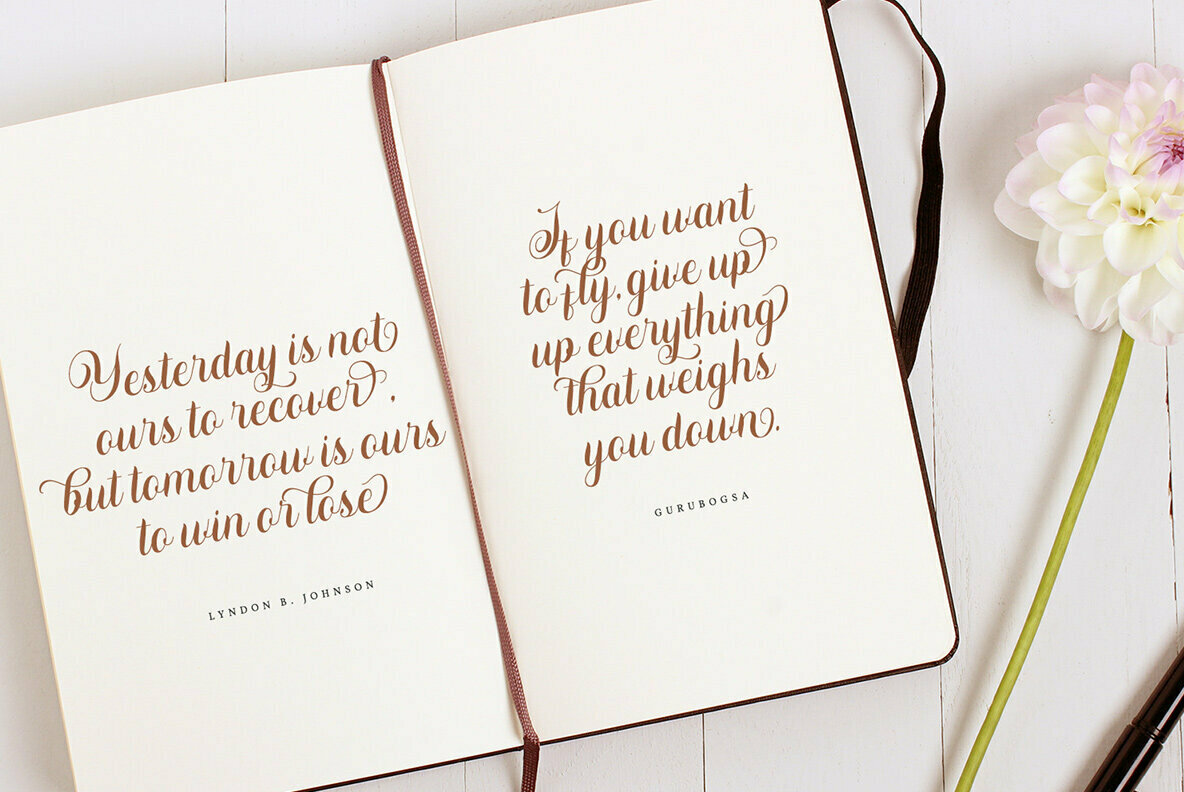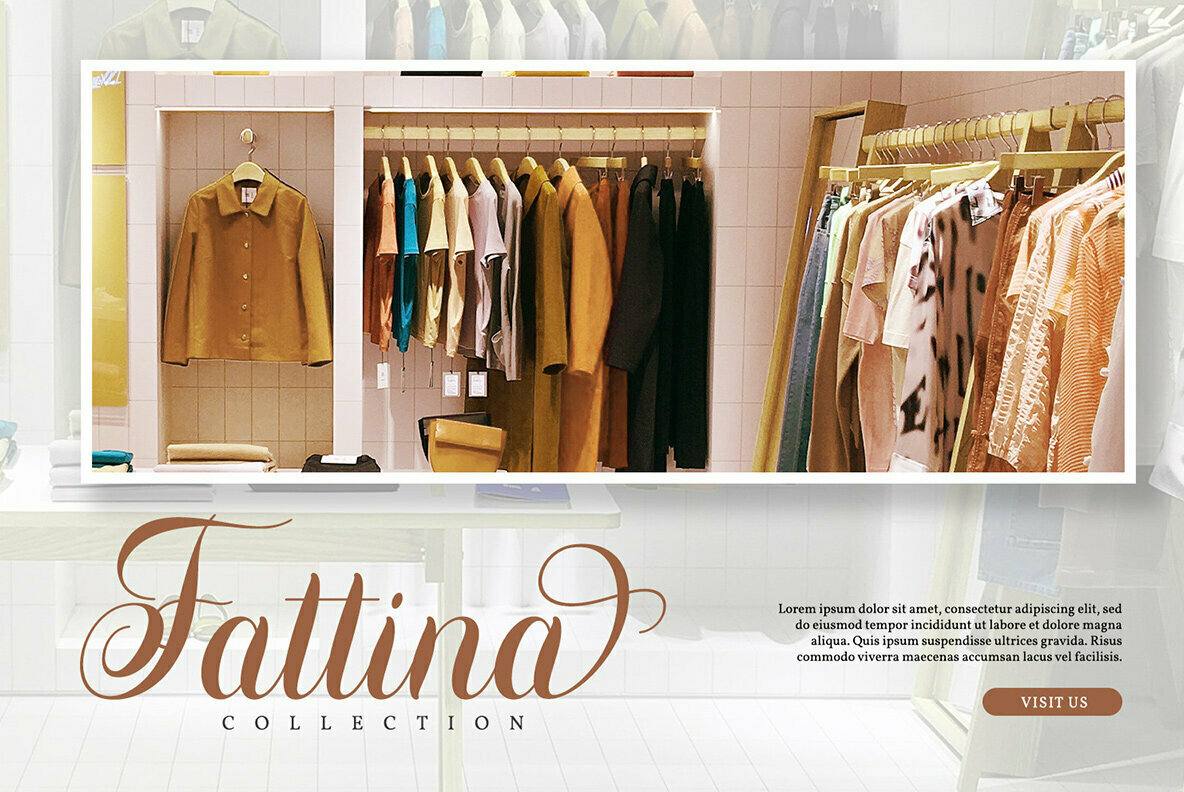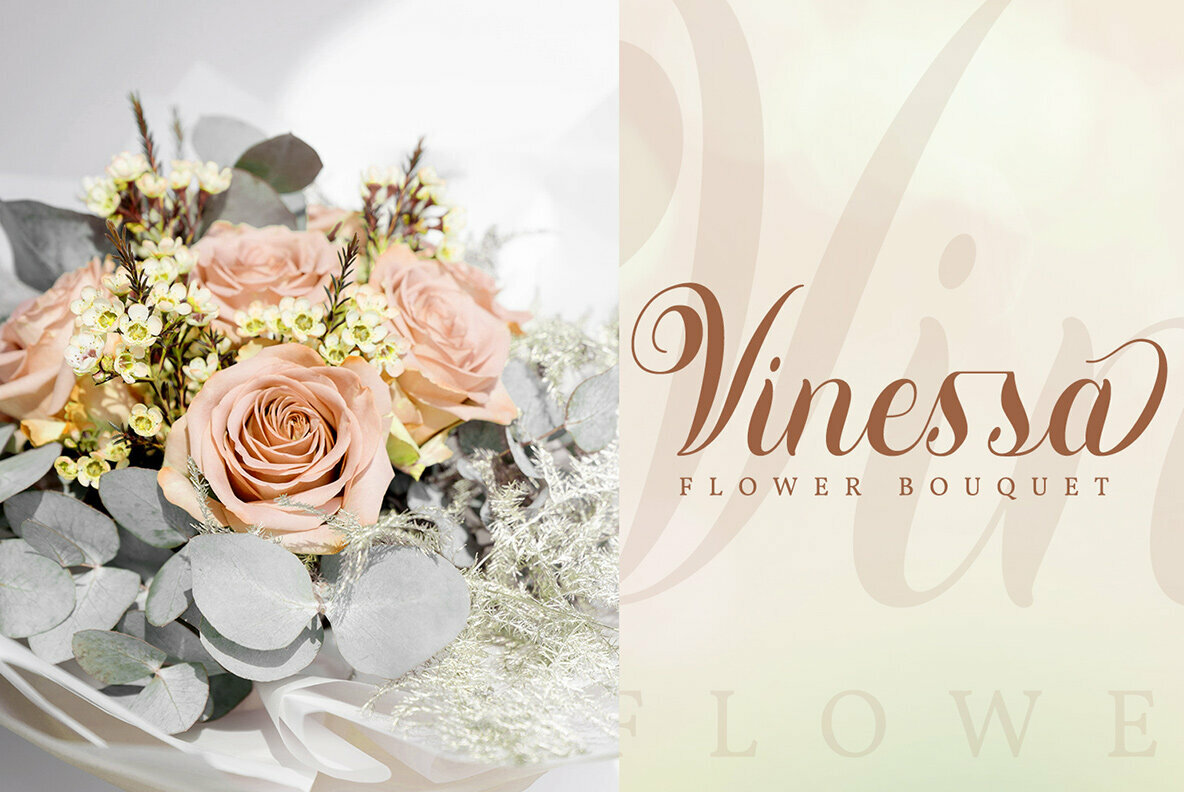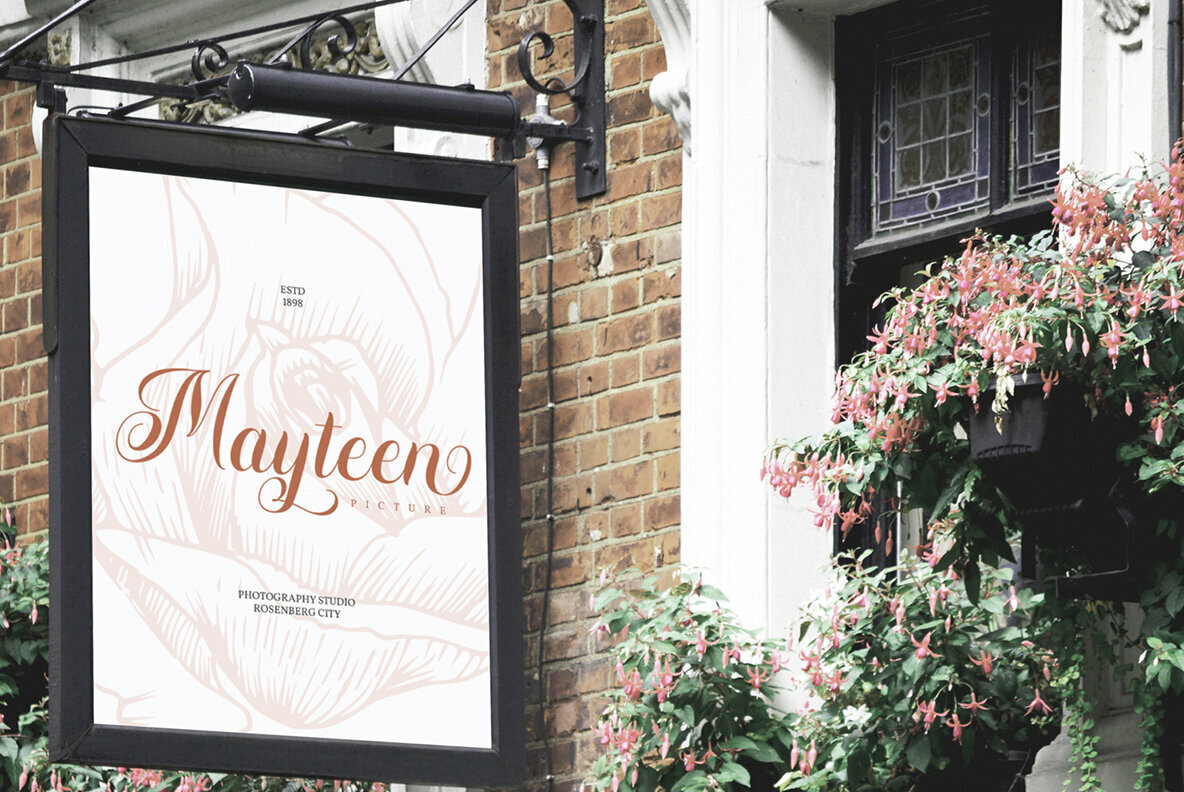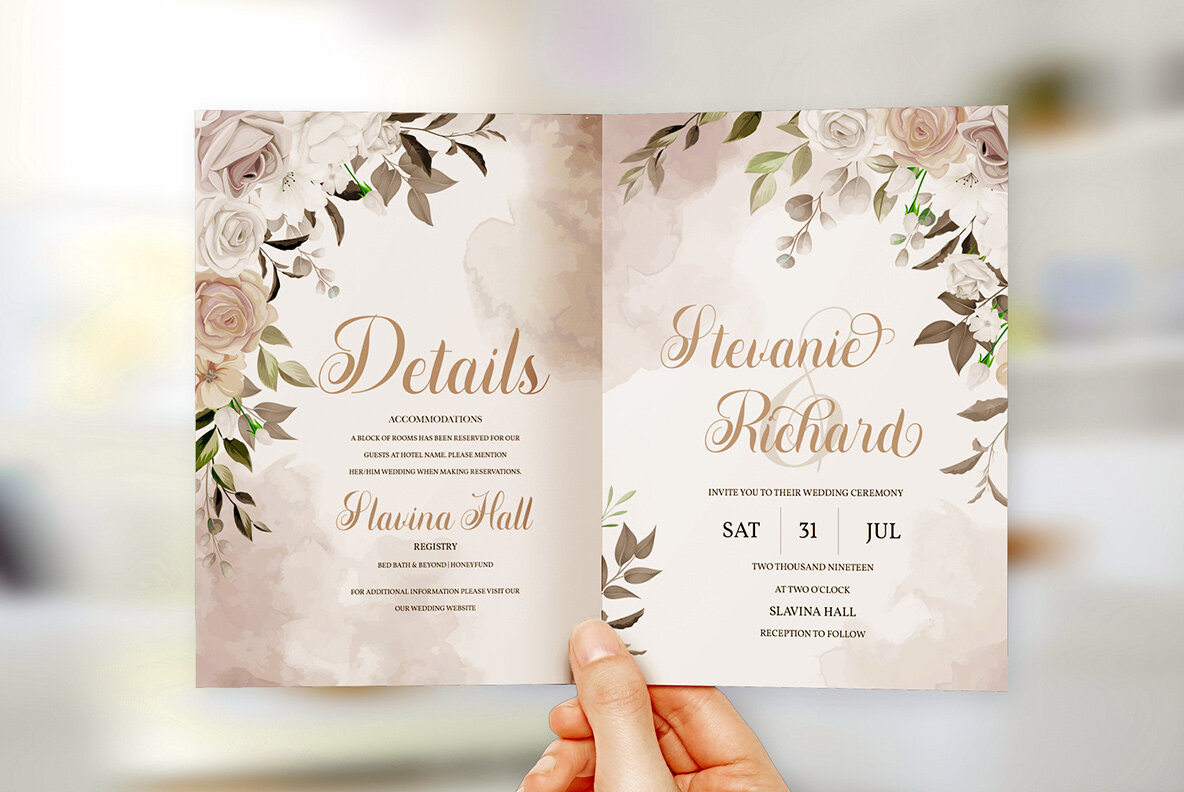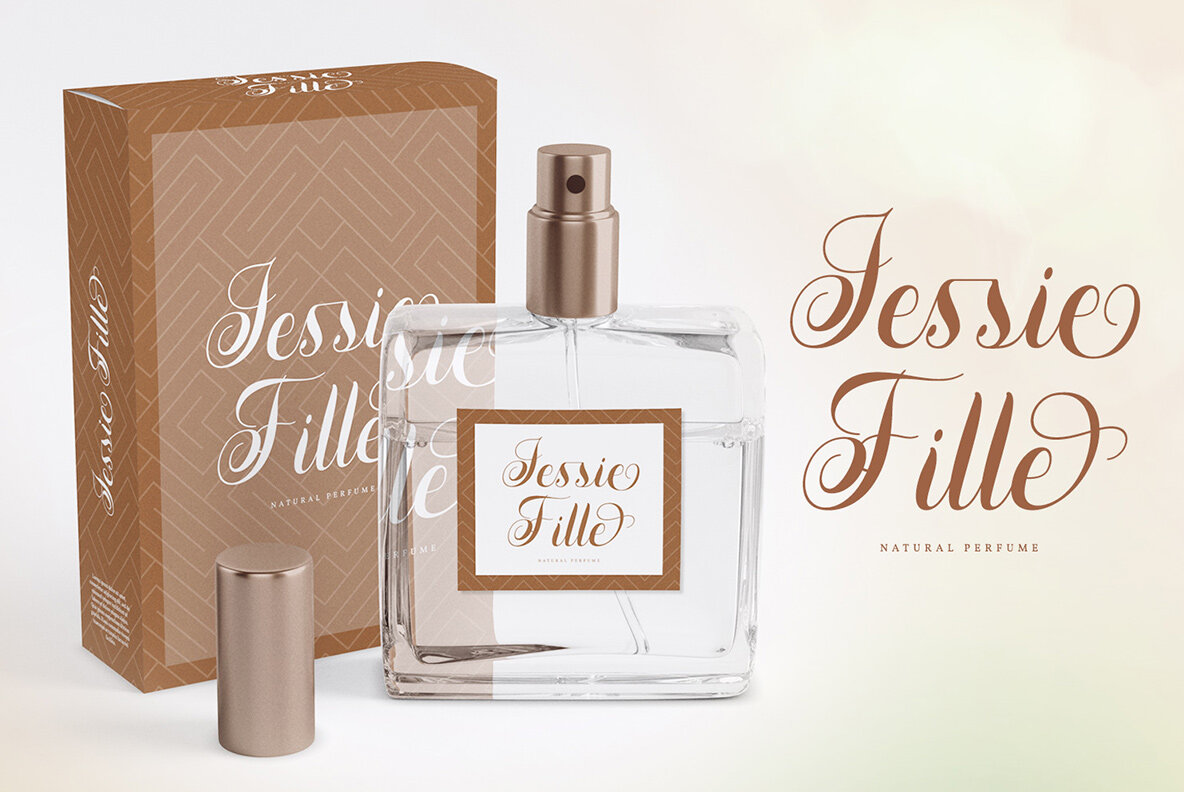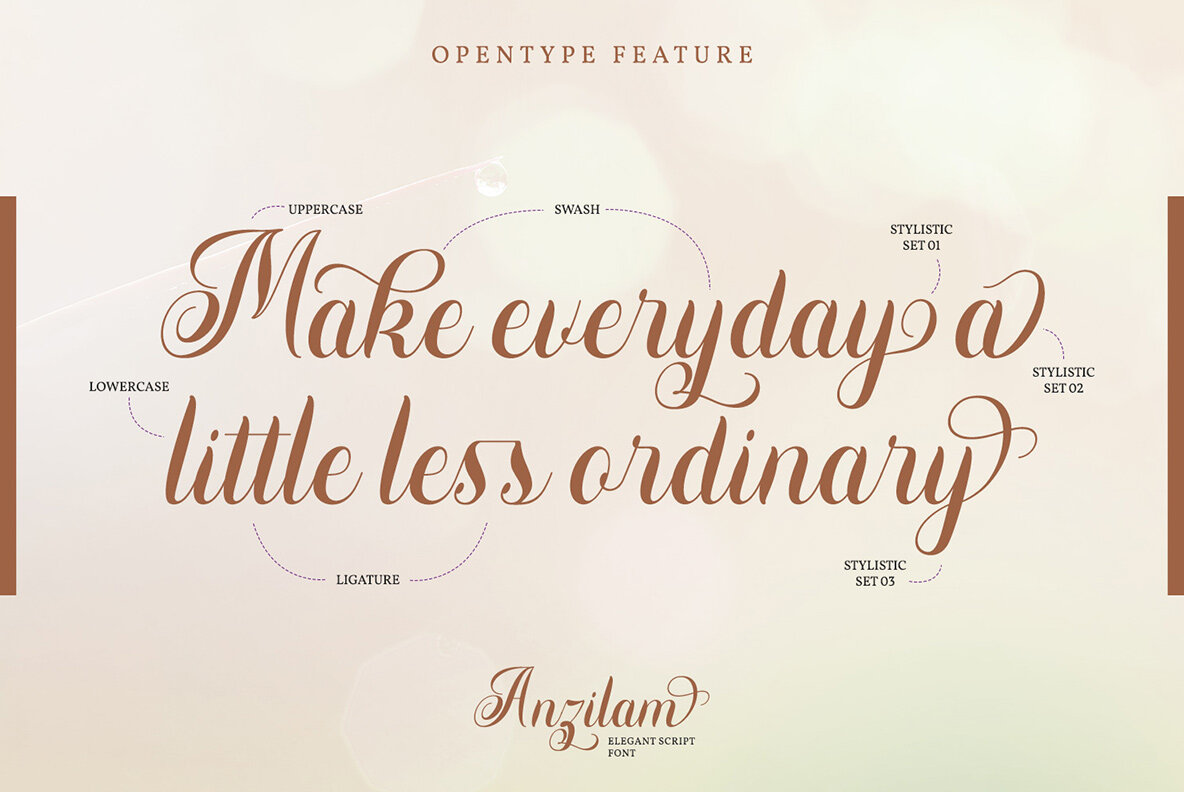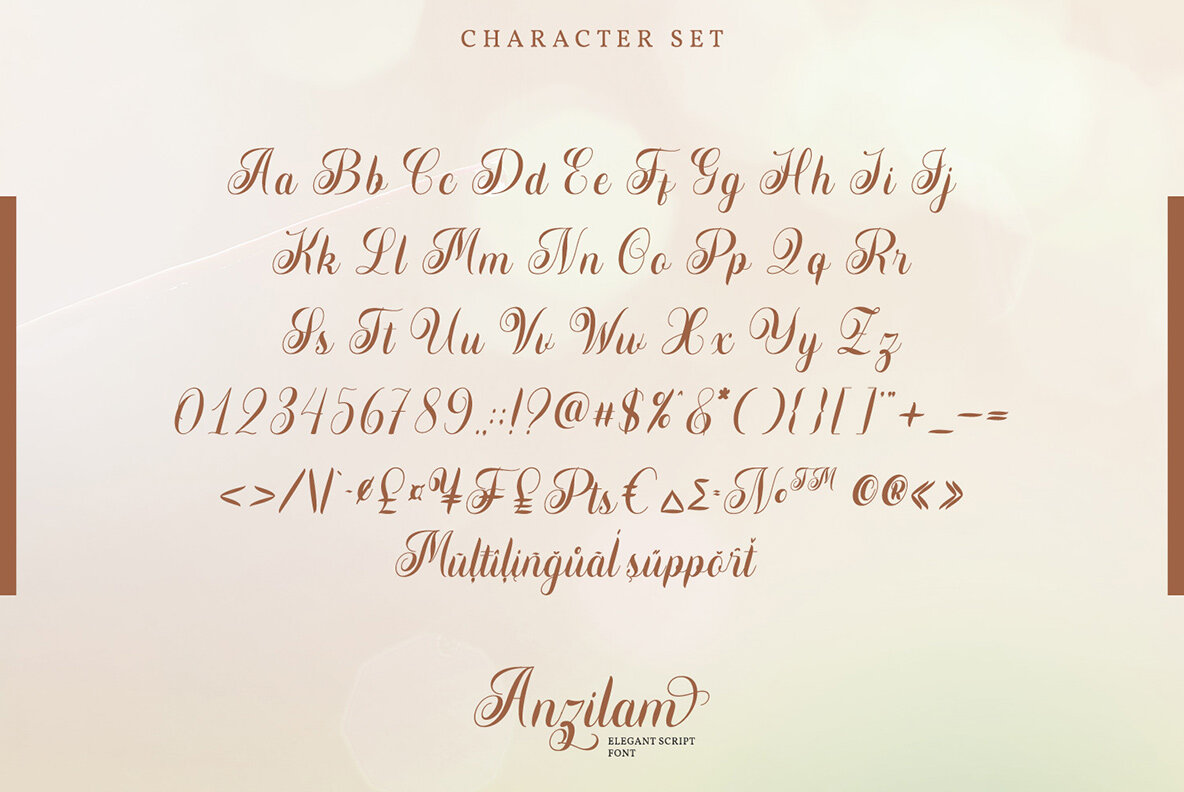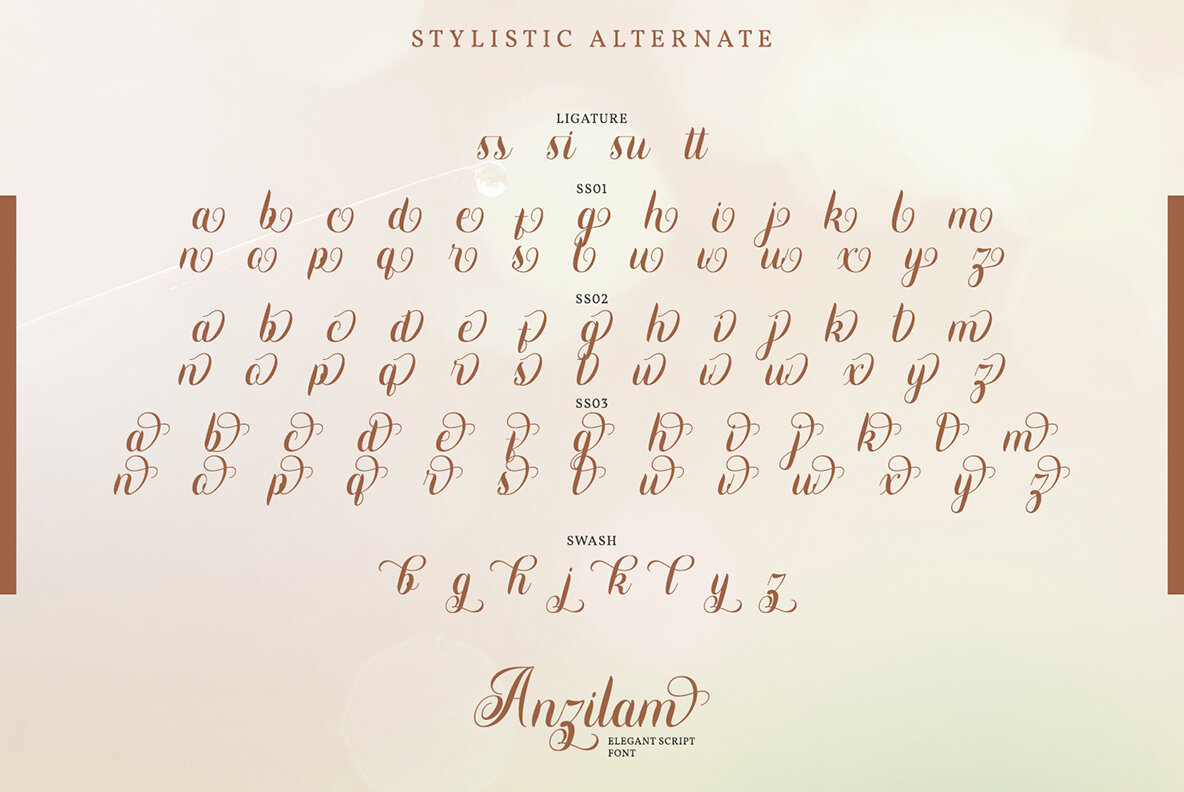
Anzilam
Anzilam offers a sophisticated modern calligraphy style that infuses your projects with beauty and charm. Ideal for professional branding, this typeface enhances logos, wedding invitations, and inspiring quotes, making them visually captivating.Anzilam: Modern Calligraphy for Elegant Branding